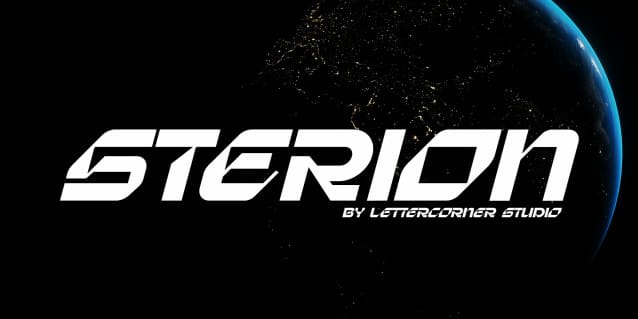
Sterion Futuristic Font
Sterion Futuristic Font, It would be a perfect choice to design posters, affiches, logos, t-shirt and magazine prints, eye-pleasing typographic designs and more.